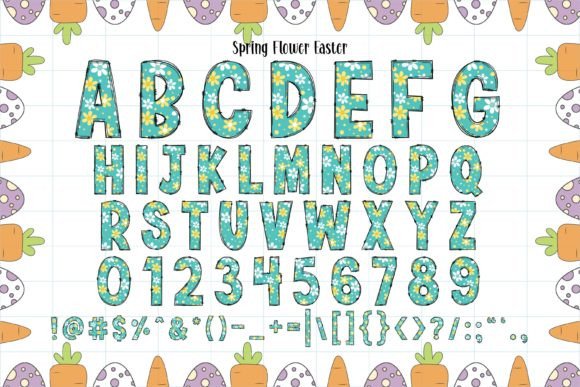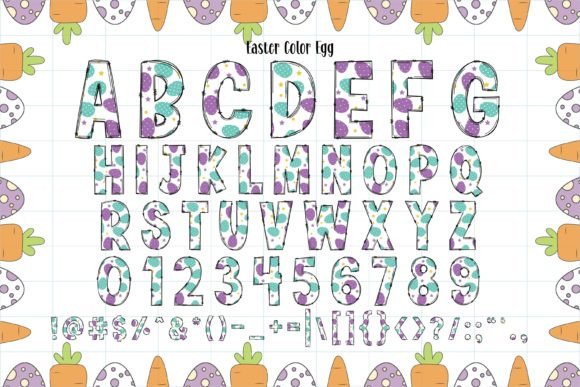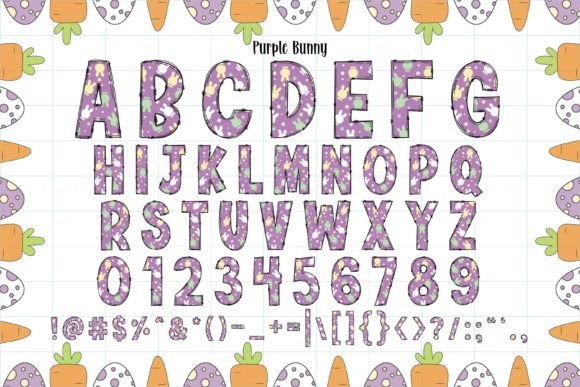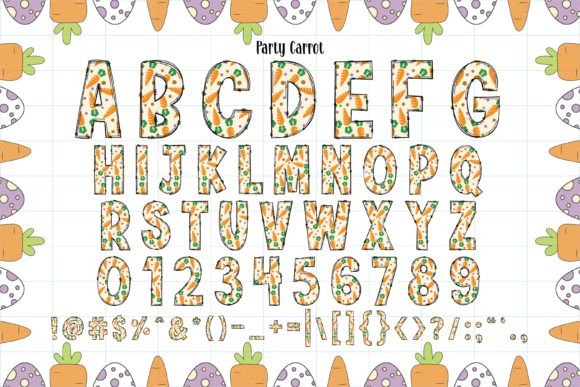
Easter Font: Elevate Your Designs with Vibrant Colors and Bold Style
Easter is a bold, fun, and attractive font that’s perfect for adding a pop of color and energy to your designs. Whether you’re a designer, crafter, or social media enthusiast, this unique and fun colored font is ideal for creating eye-catching headlines, logos, and graphics that demand attention.
What is Easter Font?
Easter Font is a digital font designed to bring a touch of excitement and playfulness to your designs. Its bold and vibrant style makes it perfect for creating stunning visuals that stand out from the crowd. With a range of vibrant colors to choose from, you can customize the font to match your brand’s personality and style.
Key Features of Easter Font
- Bold and Fun Design: Easter Font features a bold and fun design that’s perfect for creating eye-catching headlines and titles.
- Vibrant Colors: Choose from a range of vibrant colors to add a pop of color to your designs.
- Unique and Attractive: This font’s unique and attractive design makes it perfect for creating stunning visuals that demand attention.
- Ideal for Headlines and Logos: Easter Font is perfect for creating bold and eye-catching headlines, logos, and social media graphics.
Why Use Easter Font?
Easter Font is a versatile font that can be used for a wide range of design projects, from branding and advertising to crafting and DIY projects. Here are some reasons why you should consider using Easter Font:
- Add a Pop of Color: Easter Font’s vibrant colors add a pop of color to your designs, making them more eye-catching and engaging.
- Create Bold Statements: With Easter Font, you can create bold statements that demand attention and leave a lasting impression.
- Perfect for Social Media: This font is perfect for creating stunning social media graphics that stand out from the crowd.
Easter Font for Designers and Crafters
Easter Font is perfect for designers and crafters who want to add a touch of excitement and playfulness to their designs. Here are some ways designers and crafters can use Easter Font:
- Create Stunning Visuals: Use Easter Font to create stunning visuals that demand attention and leave a lasting impression.
- Design Eye-Catching Headlines: Use Easter Font to design eye-catching headlines that grab attention and draw readers in.
- Make Beautiful Logos: Use Easter Font to create beautiful logos that reflect your brand’s personality and style.
- Perfect for DIY Projects: Easter Font is perfect for DIY projects, such as crafting, scrapbooking, and card making.